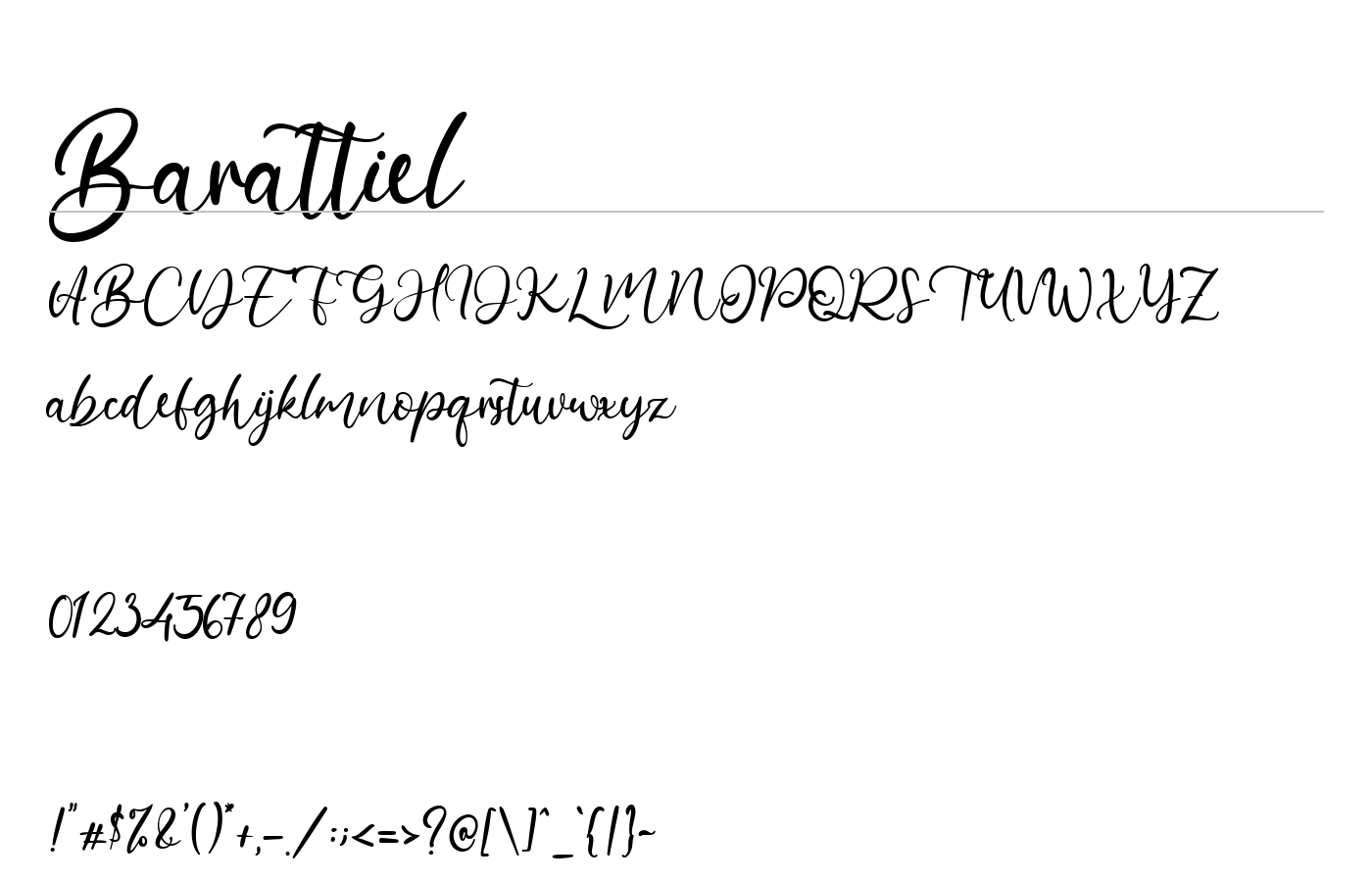
Barattiel is an elegant script font featuring flowing, smooth strokes that mimic natural handwriting with a touch of flair. Its slender letterforms and graceful curves give it a sophisticated yet approachable personality, making it ideal for invitations, branding, and stylish headlines where a personal and refined feel is desired. This font works beautifully for projects seeking a blend of charm and elegance without sacrificing readability.
Barattiel Font
About Barattiel Font
| Font family | Barattiel Font |